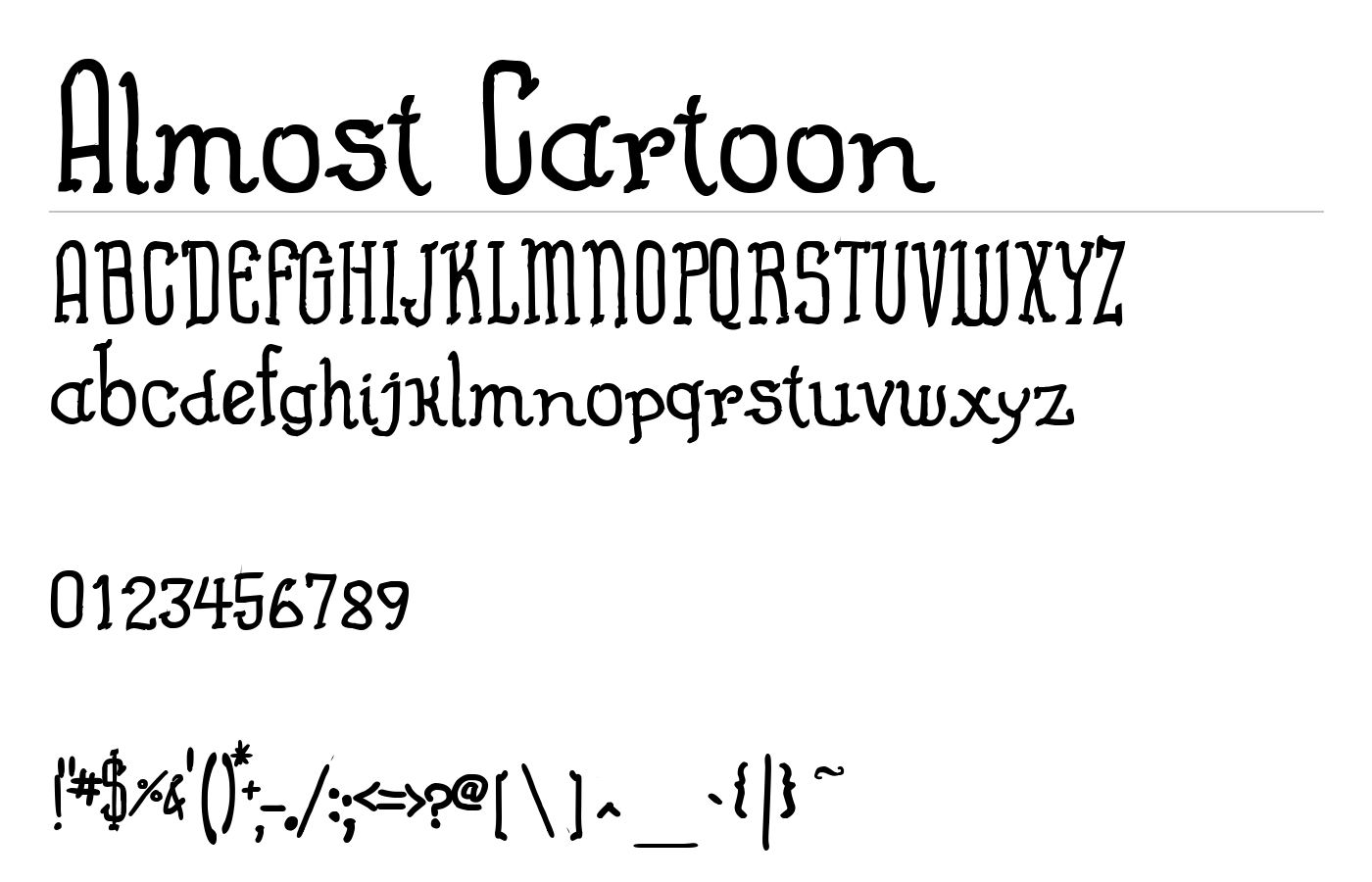
Almost Cartoon is a playful and quirky serif font with a hand-drawn feel, featuring narrow and slightly irregular letterforms that add a touch of whimsy. Its light weight and medium contrast strokes, combined with unique character shapes, make it ideal for creative, informal headlines, children's books, or fun branding where an approachable, casual vibe is desired. This font works best in projects aiming to convey friendliness and creativity with a vintage cartoon-inspired charm.
Almost Cartoon Font
About Almost Cartoon Font